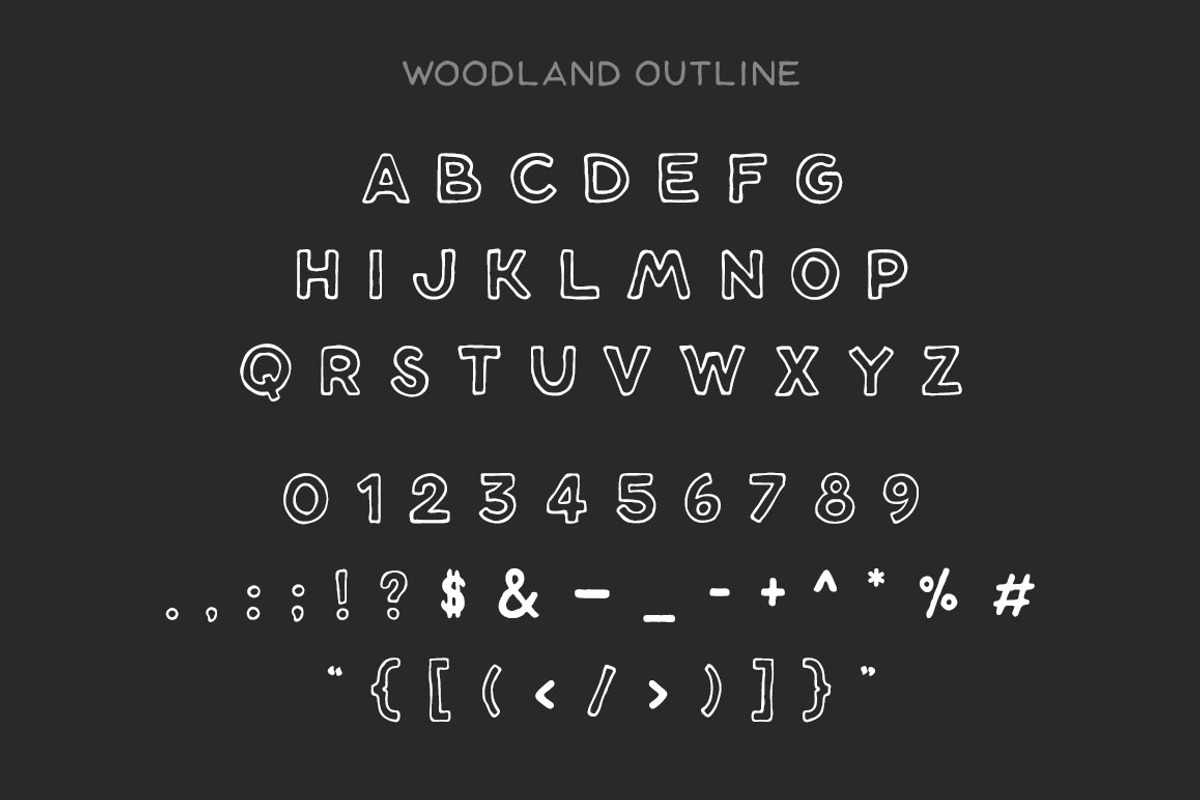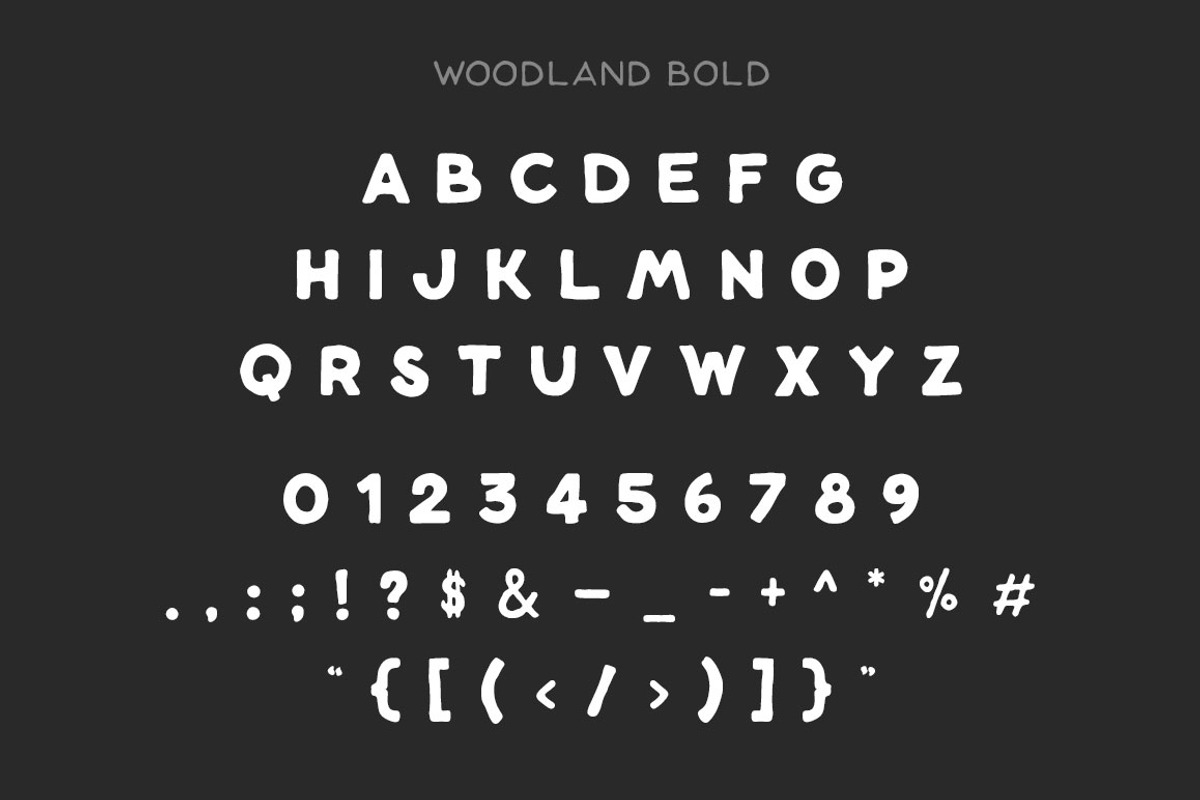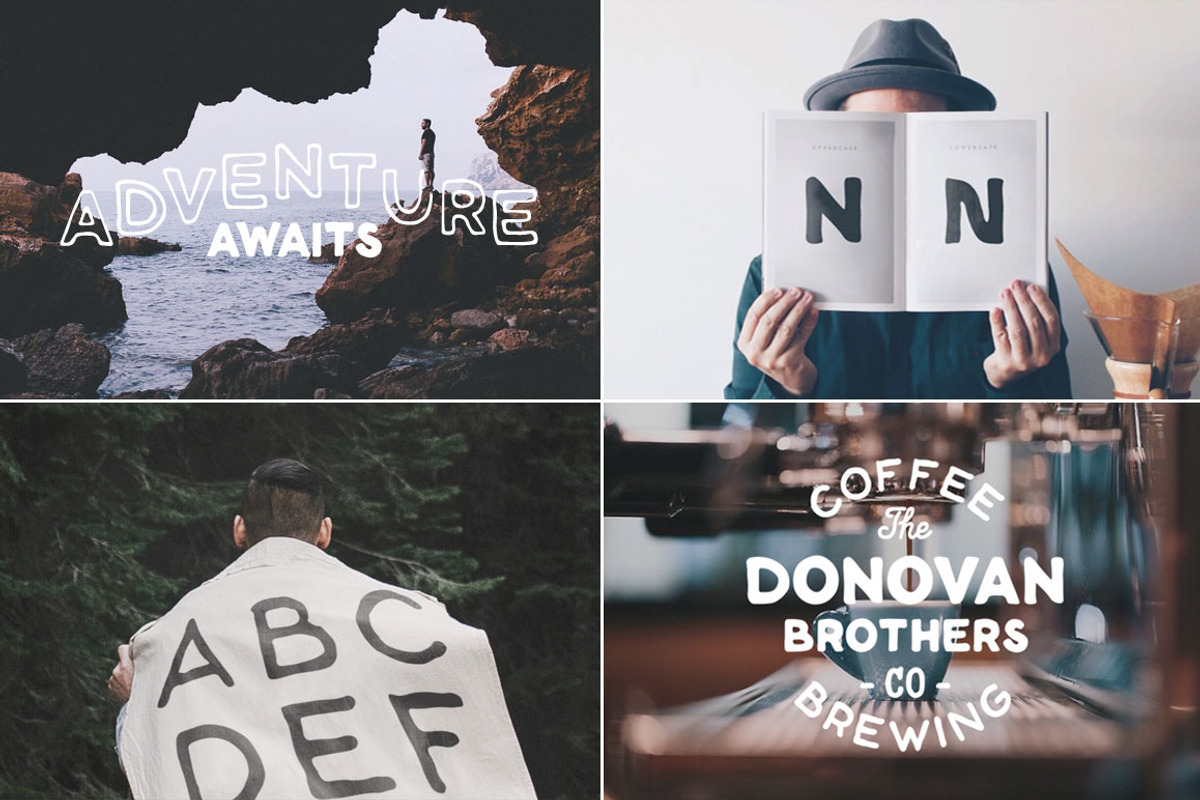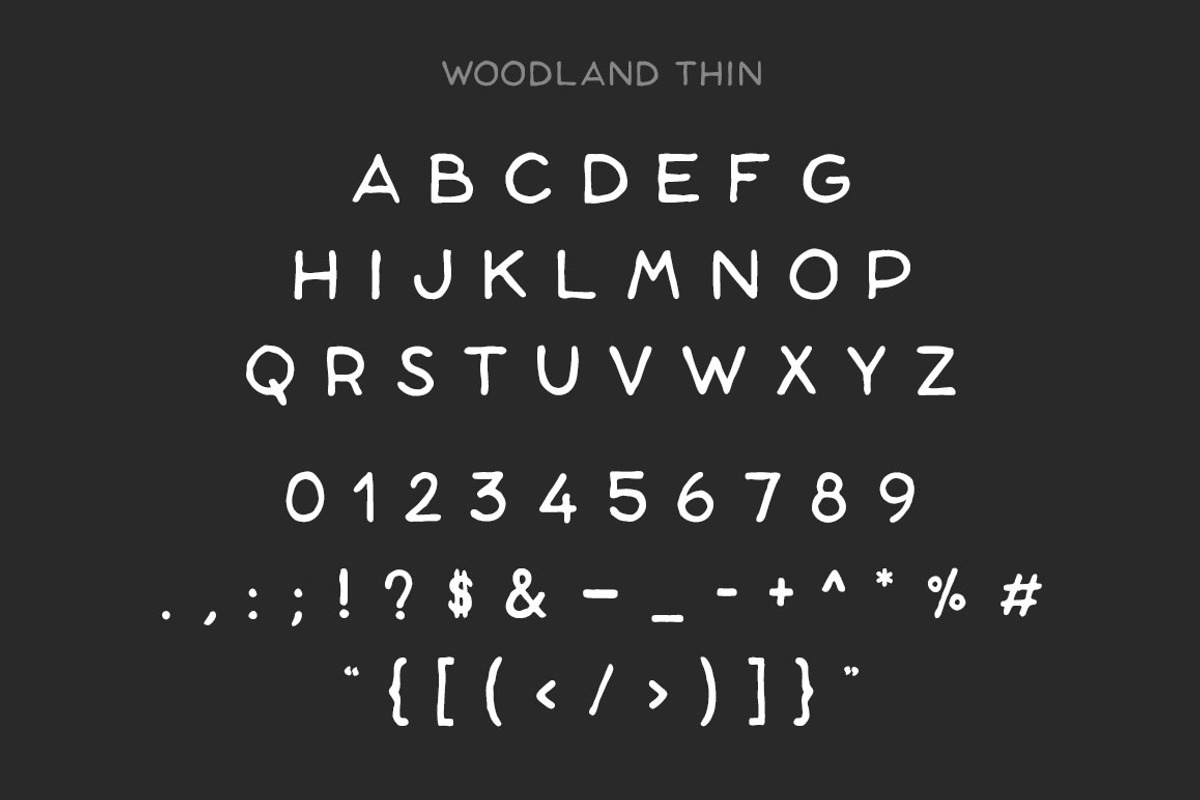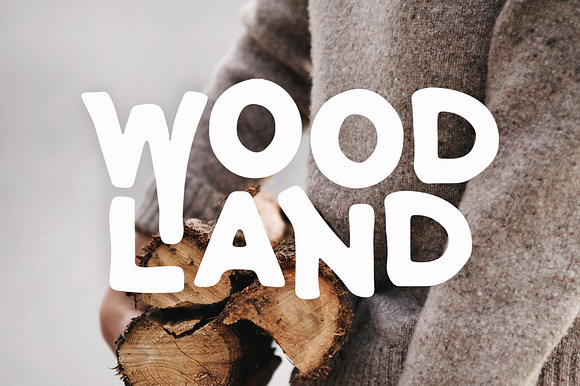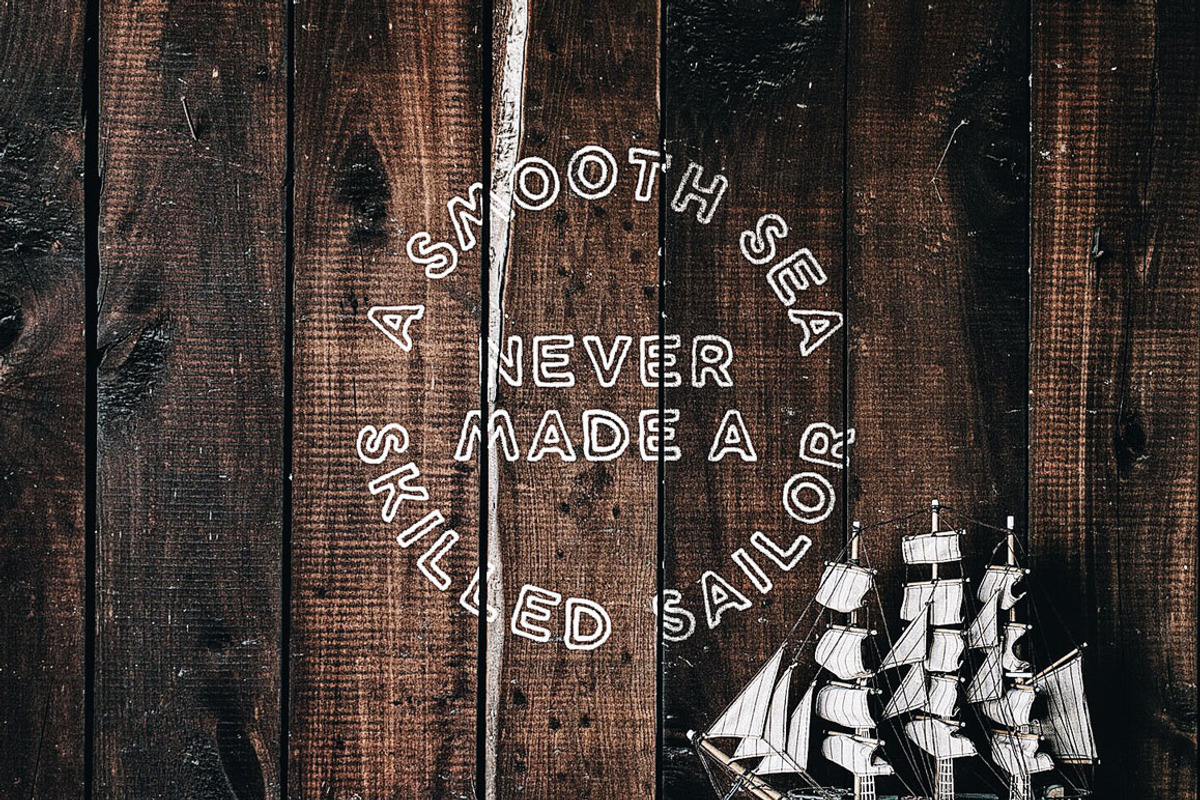
Woodland Font
Woodland is a fully hand-crafted sans serif typeface, including three weights: thin, bold and outline. Each of the three fonts contains an uppercase alphabet, numbers, symbols and special characters.
- Each of the three fonts contains an uppercase alphabet, numbers, symbols and special characters.
- Woodland Thin
- Woodland Bold
- Woodland Outline